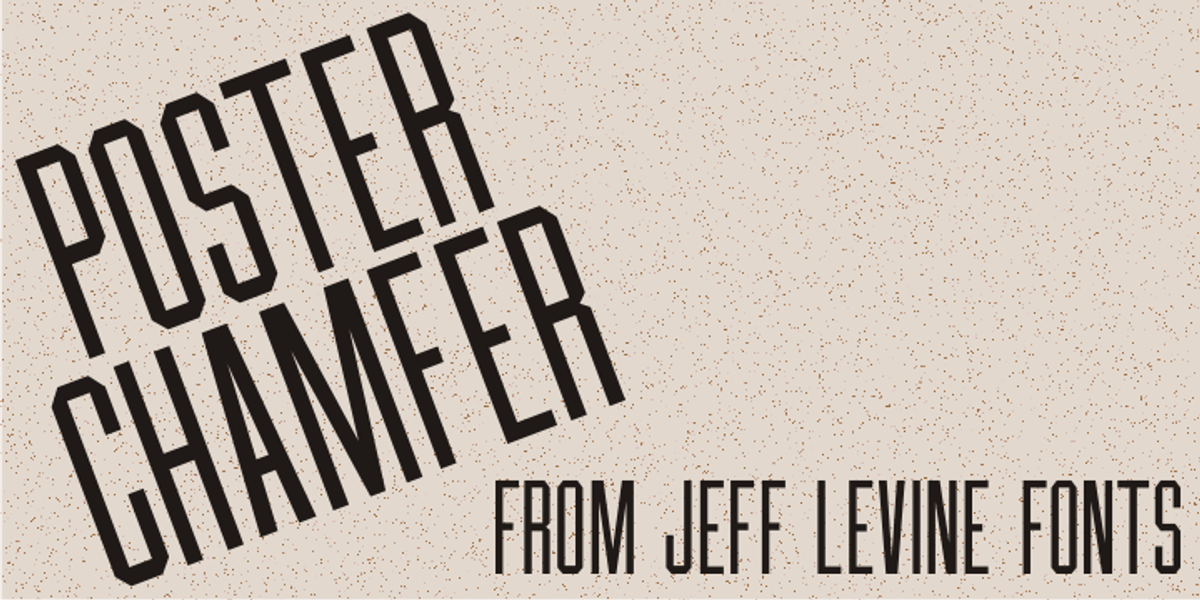
Poster Chamfer JNL
Type books and lettering manuals of the 1900s were resplendent with examples of chamfered type faces, as this was a popular and simple style of lettering that was easy to reproduce with little effort.
Poster Chamfer JNL is one such example taken from one of these turn-of-the-century publications that exemplifies the style as a condensed version of the letters.